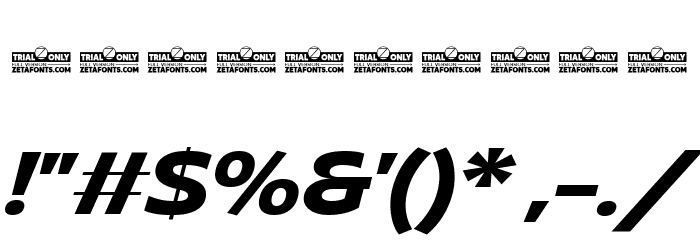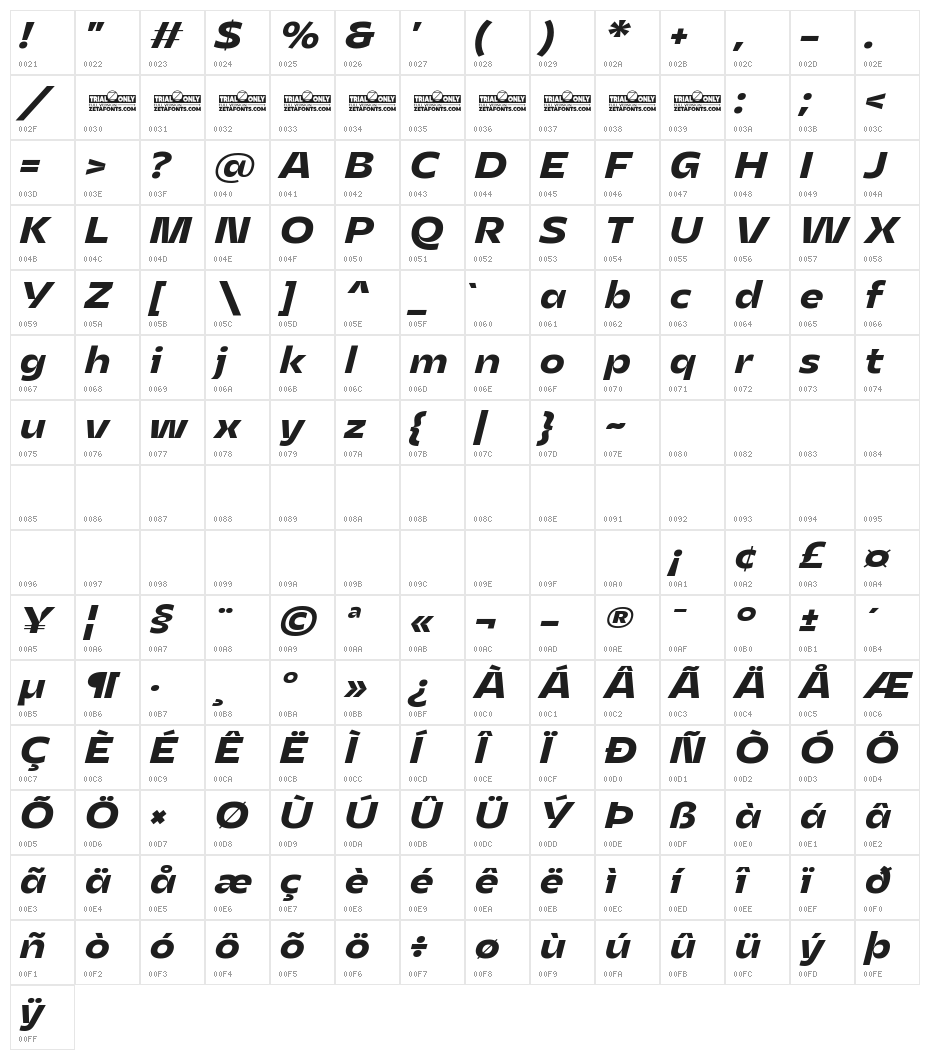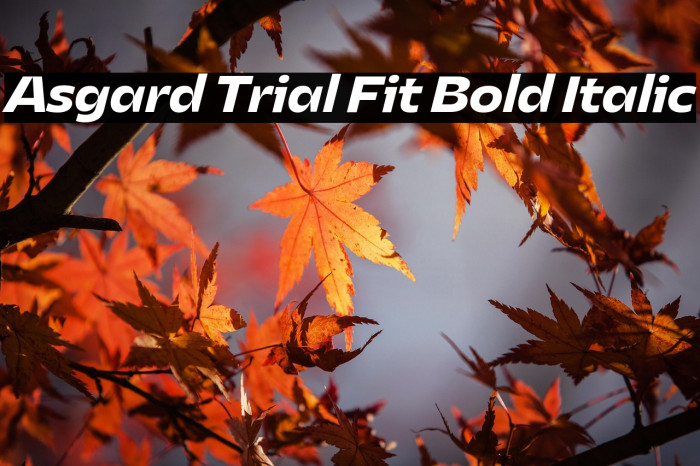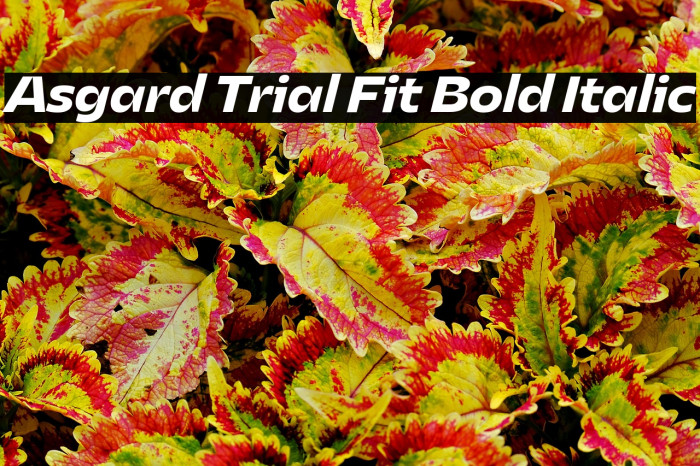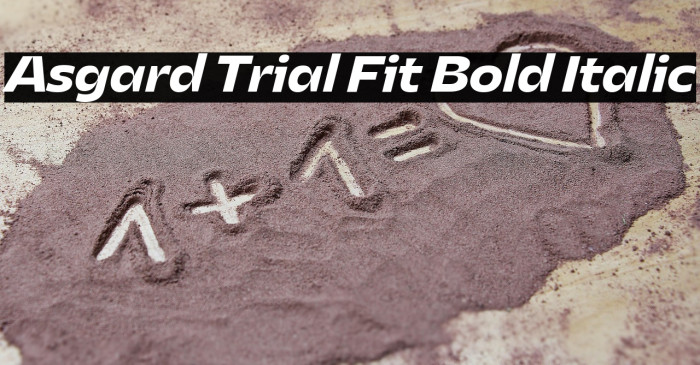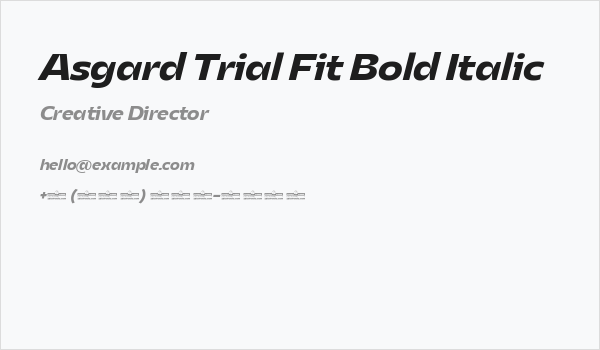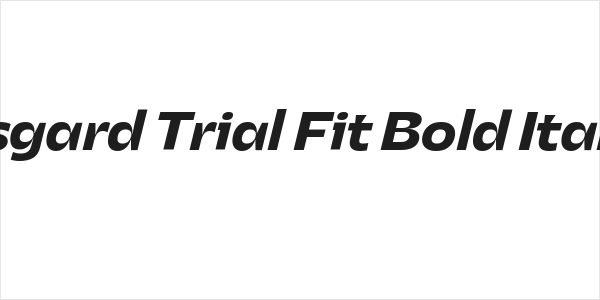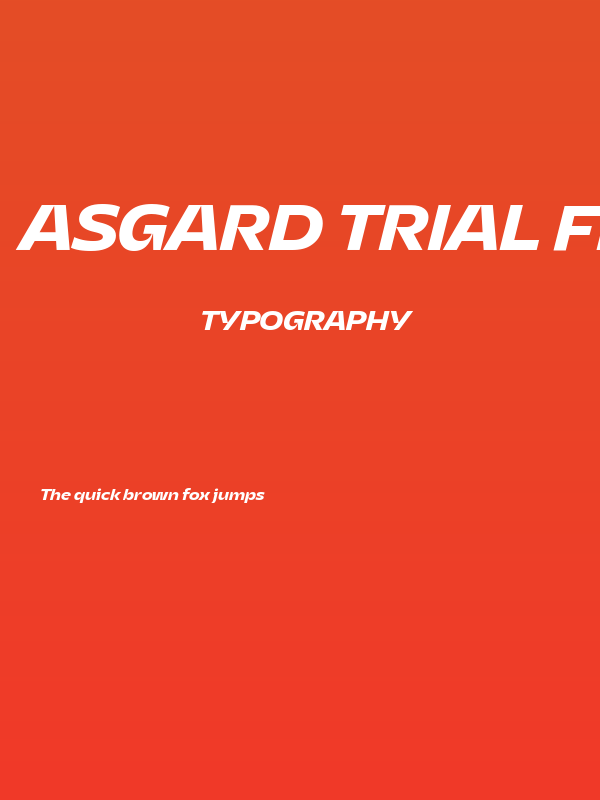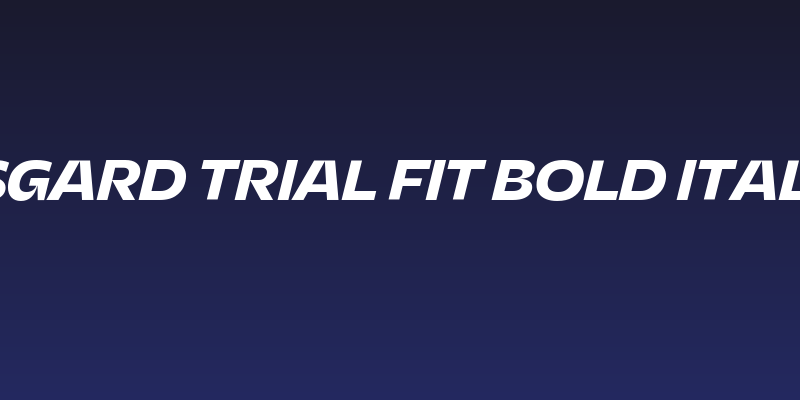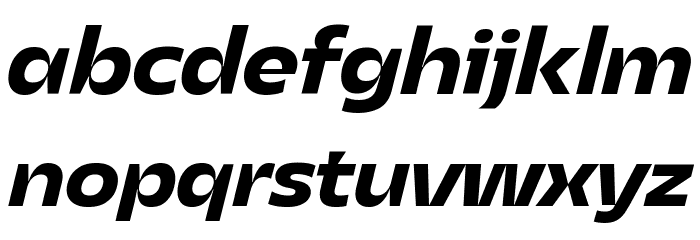
Asgard Trial Fit Bold Italic Font
Asgard Trial Fit Bold Italic Description
This font features a bold and italic style with a modern and dynamic appearance. The characters are slightly slanted, giving a sense of motion and energy. The strokes are thick and consistent, providing a strong presence on the page. The uppercase and lowercase letters maintain a uniform width, contributing to a cohesive look. The numerals and special characters are designed to match the overall bold and italic aesthetic, ensuring consistency across all text elements.
| Use Case | Headlines, Logos, Branding |
| Proposed Projects | Ideal for branding, advertising, headlines, and any project requiring a strong, modern typeface. |